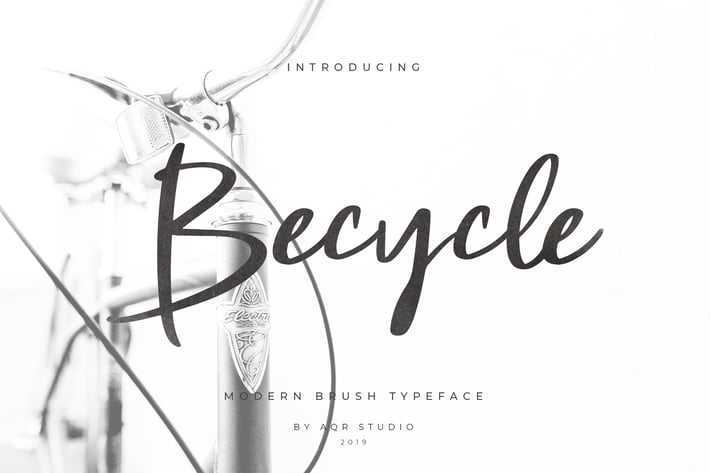
Becycle Brush Font Script
Becycle Brush Font that contain lowercase, uppercase, symbol, and also support multi language. There’s a lot ligatures in this font. Becycle Brush Font also comes with ligatures, stylistic alternates and many more. this font suitable for fashion, branding, catalog and other design what you want.